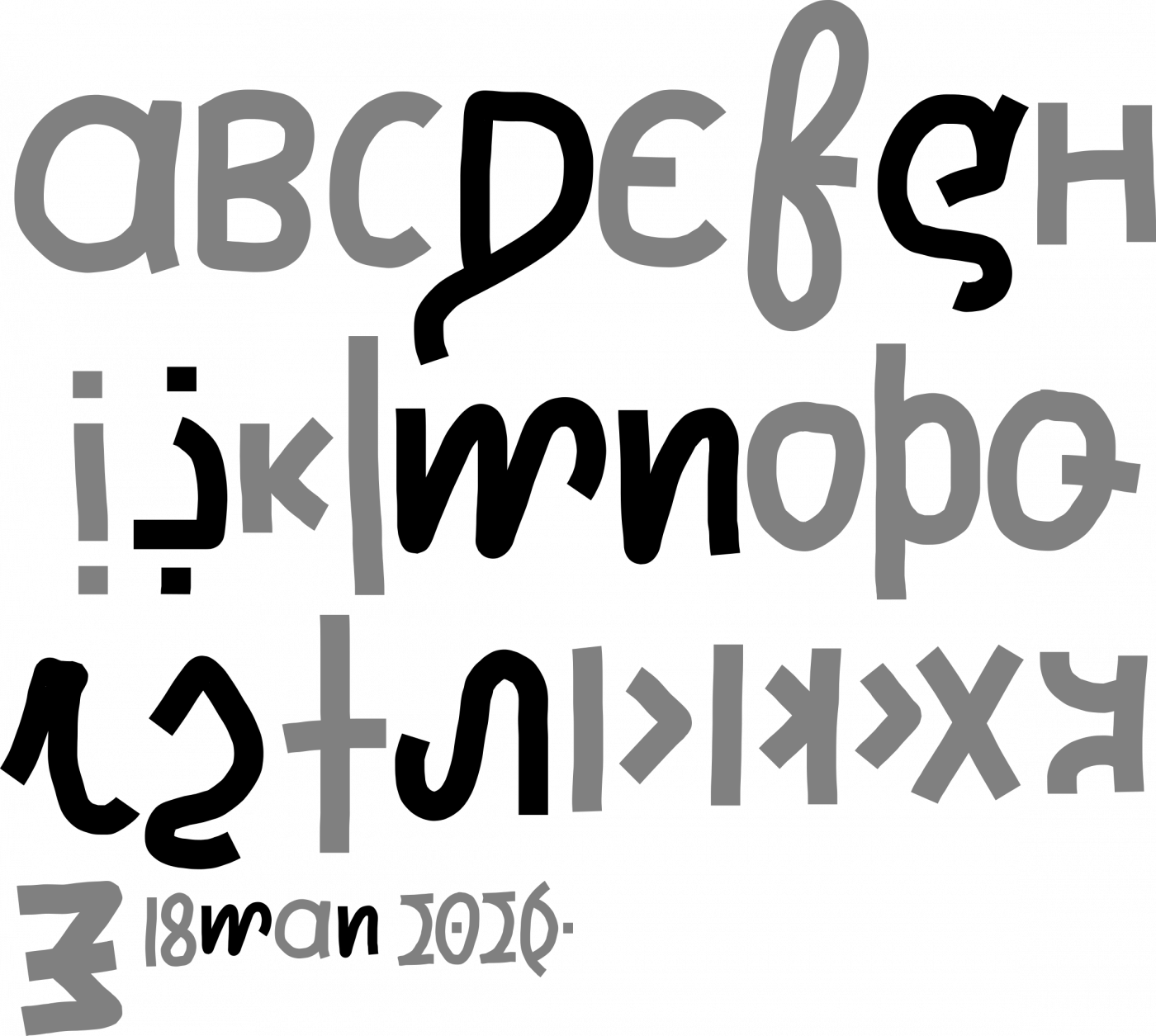
•  (And here goes a new font!
This font may be weird-looking, indeed, but it has this particularity to be read the same even if mirrored (if you put the mirror just below the text) as each single glyph is symmetrical following the X-axis (the baseline).
The R, the lowercase Y and some of the numbers were true challenges but I had fun doing them all anyway.
I wanted to do an ambigram-ish font and here it is. Well, good luck trying to do an actual ambigram out of this but this could surely be helpful for a number of other things. You to choose!
1. Improved the $ and tried to improve the Y/y.
2. Re-improved the $ and the Y/y, also improved the U/u and the n.
3. Improved the 2. And edited a bit the b and the h.
4. Improved 1 and 7.
5. Edited the F and the y for them to look less "out" of the font. (May not being an improvement.)
Amazing execution of an idea very tough to fulfill. I especially love R/r, Z/z,  and g. Some letters don't work as well as the rest (U/u look almost like A/a, Y and 2 are almost illegible), but I don't see any real way to improve these. I will suggest putting the points on $ at the center of the top and bottom rather than the corners. Overall, 9/10 + fave
For the other letters, I'm still searching for improvement, especially for those you mentionned. But hey, it'd be not fun if it was all easy.
Very nice updates. The Y is much more legible now. I may have liked the old y a bit better (don't remember exactly what it looked like though), but it's good to have it match the uppercase version. The U/u look slightly better now--you can't really get any further from A/a because the top has to be the mirror of the bottom. The 2 is more legible than before as well. The only one left that doesn't work too well is the 7...
Thanks. However, I may have to owe you an explanation about why I changed the lowercase y... Well, in fact it was a misunderstanding of your first message, but there was also another reason. The old y, as well as the old 1, the current F and the current W/w bug me a little like if they were out of the rest of the glyphes' style. If you like the old version of the y better I can put back it as I think I'm able to make it match the overall style. (I may ask you if the letters are still okay after they'll be updated to match the style.)
Still about the style, I find the U/u nice enough to be let alone now, even if indeed I couldn't get really further even if I wanted to. Though I think the fact the two vertical bars aren't of the same height may insist on the fact they aren't actually attached at the top and the bottom like the ɑ.
Now, for the 7, I've an easy way to make that letter more Legible.
The glyphs don't have to be perfectly symmetrical to be readable. Try using some of these glyphs. Though I don't reccomend the G. Thanks!